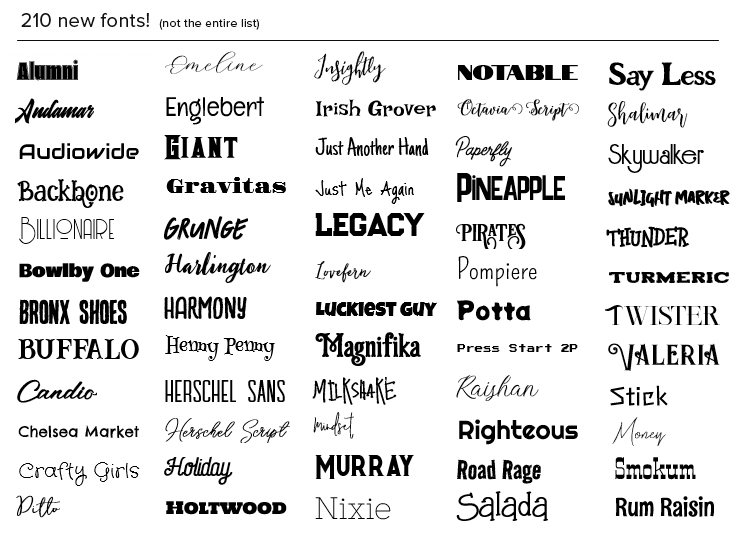
Our Font offering has grown even larger over the last 24 hours. We have added 210 new fonts to the Design tool. That is a lot of choices!
This includes new international fonts as well as a Categories overhaul, thanks to your feedback. We hope there is less crossover within the available categories now which should help you find the ideal fonts even faster. We’ve updated the handwriting/calligraphy and script categories since many of them were overlapping. We’ve now recategorized it to Casual handwriting which will contain handwritten non-cursive fonts and Script + Calligraphy which will contain script/cursive and formal calligraphy fonts.
Have a look at some of the new fonts below.